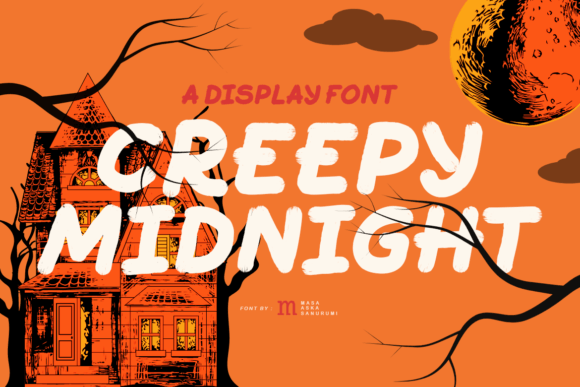
When Creativity Strikes in the Dead of Night
Have you ever found yourself wide awake at midnight, staring at your computer screen, and suddenly hit with a burst of creative inspiration? The world outside may be quiet, but your mind is racing with ideas and possibilities. For designers, those late-night moments can be the most productive and exciting times, and the right tools can make all the difference.
One such tool that can elevate your designs and tap into the eerie atmosphere of those midnight hours is the Creepy Midnight Font. This unique display font is perfect for designers who want to add a touch of spookiness and sophistication to their work. Whether you’re creating a horror-themed poster, a mysterious website, or a cryptic advertisement, the Creepy Midnight Font will make your designs stand out in a crowded market.
Creepy Midnight Font Key Features
- Font Family: Creepy Midnight is a unique, horror-themed font designed for use in various creative projects.
- Unique Characteristics: Features a distressed, worn, and eerie aesthetic with irregular letterforms, perfect for horror-themed projects, haunted house decorations, and spooky designs.
Designer Review: Creepy Midnight Font
Overall, I’d say Creepy Midnight Font is a decent addition to any designer’s toolkit, but it’s not without its quirks. Let’s dive in.
- ✨ The unique blend of modern and vintage elements gives it a distinct character that’s perfect for horror-themed projects.
- ✨ The font is highly customizable, allowing you to tweak the spacing, weight, and other parameters to suit your design needs.
- ✨ The font family is quite extensive, with multiple weights and styles to choose from, making it a great option for creating complex designs.
- ⚠️ The font can be quite difficult to read in certain contexts, particularly at small sizes or in low-contrast designs.
- ⚠️ The font’s irregular shape can make it challenging to pair with other fonts, especially those with more traditional or symmetrical designs.
- ⚠️ Some users may find the font’s “creepy” aesthetic too over-the-top or distracting, which can impact its usability in certain contexts.
Creepy Midnight Font is a solid choice for designers looking to add some edge to their projects. While it may not be perfect for every design, its unique character and high level of customization make it a valuable addition to any toolkit. Just be mindful of its limitations and use it thoughtfully to get the best results.
The “Creepy Midnight Font” is ideal for creating spooky or horror-themed designs. Use it for:
- Halloween party invitations or decorations.
- Horror movie posters or promotional materials.
- Spooky social media graphics or memes.